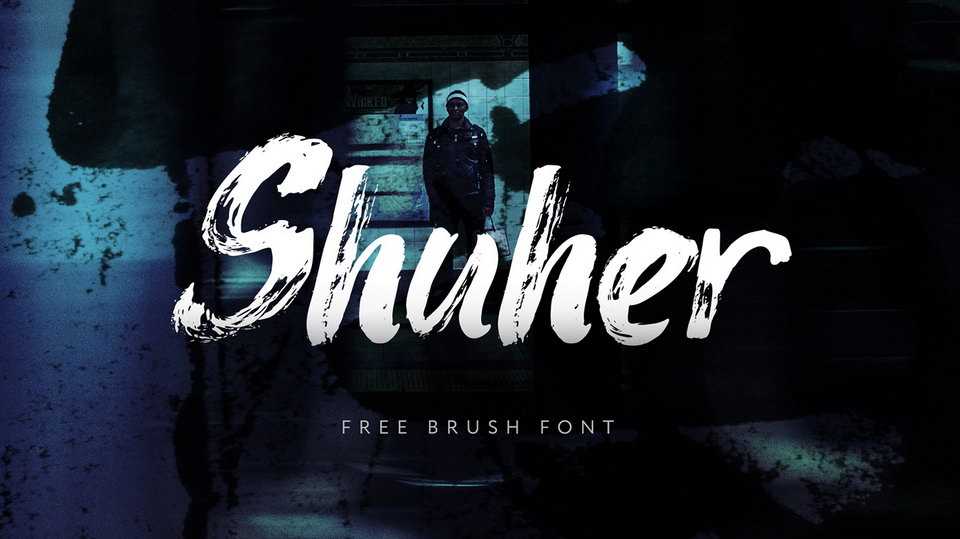
Download Shuher font, a hand-painted hard brushed font with strong character. So ragged brush strokes and disorderly forms. The Shuher painted manually by hard brush+ink on office paper to save all details, all textures after scanning.
Designer: Mindryukov Alexandr